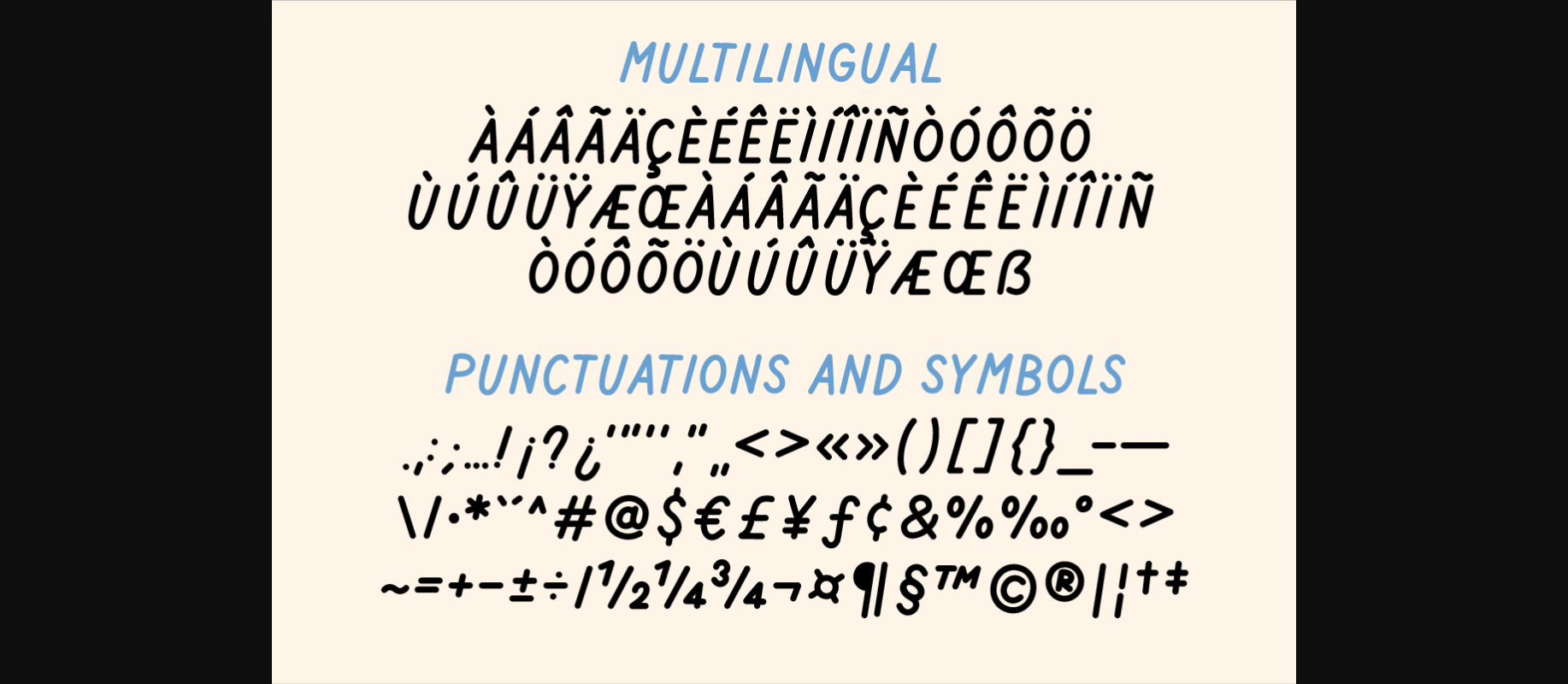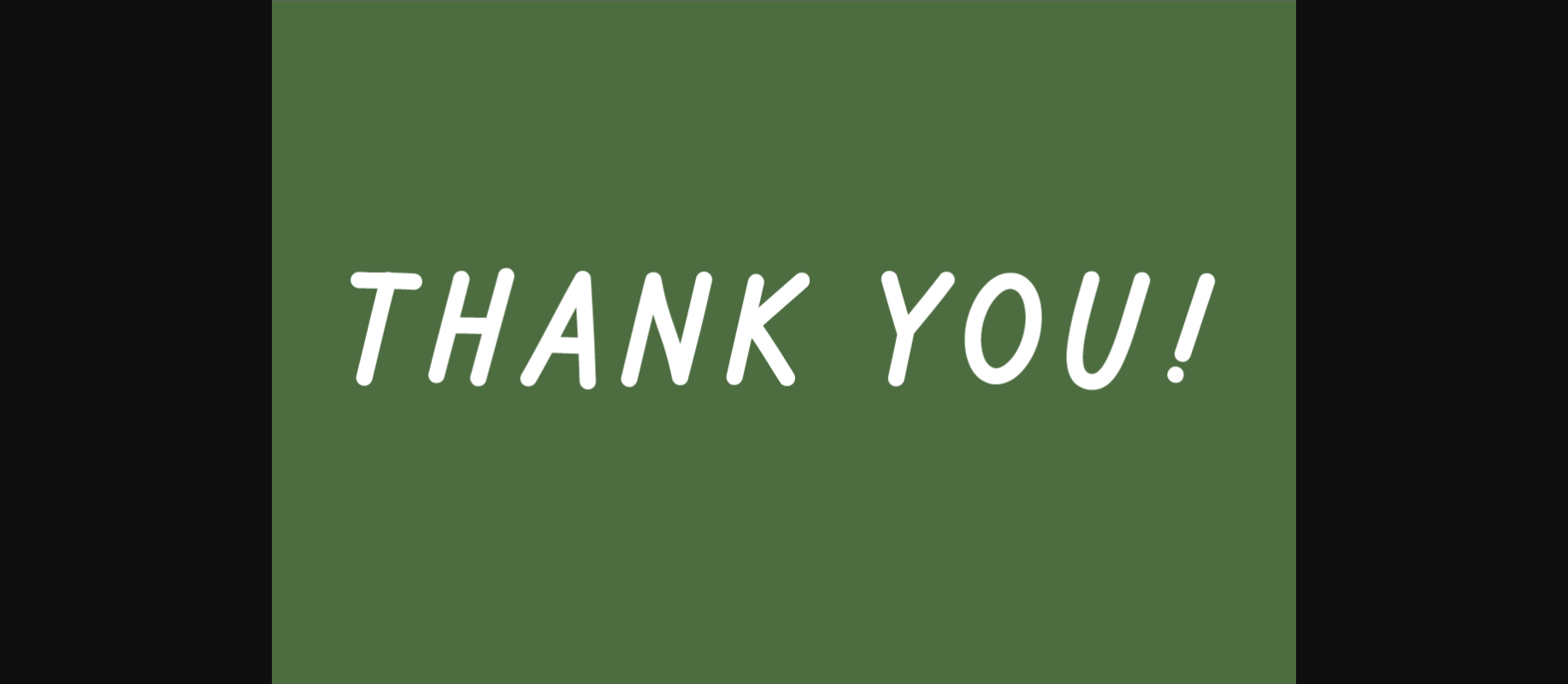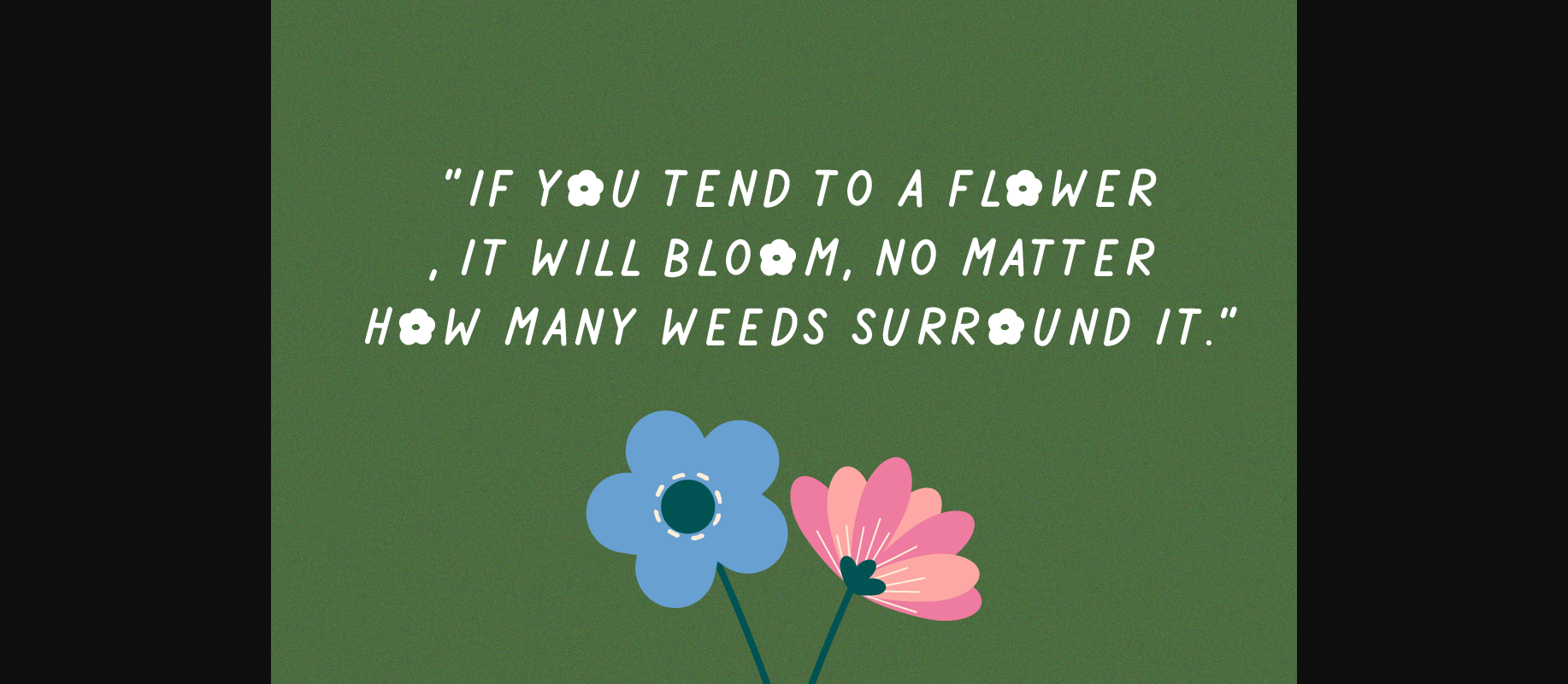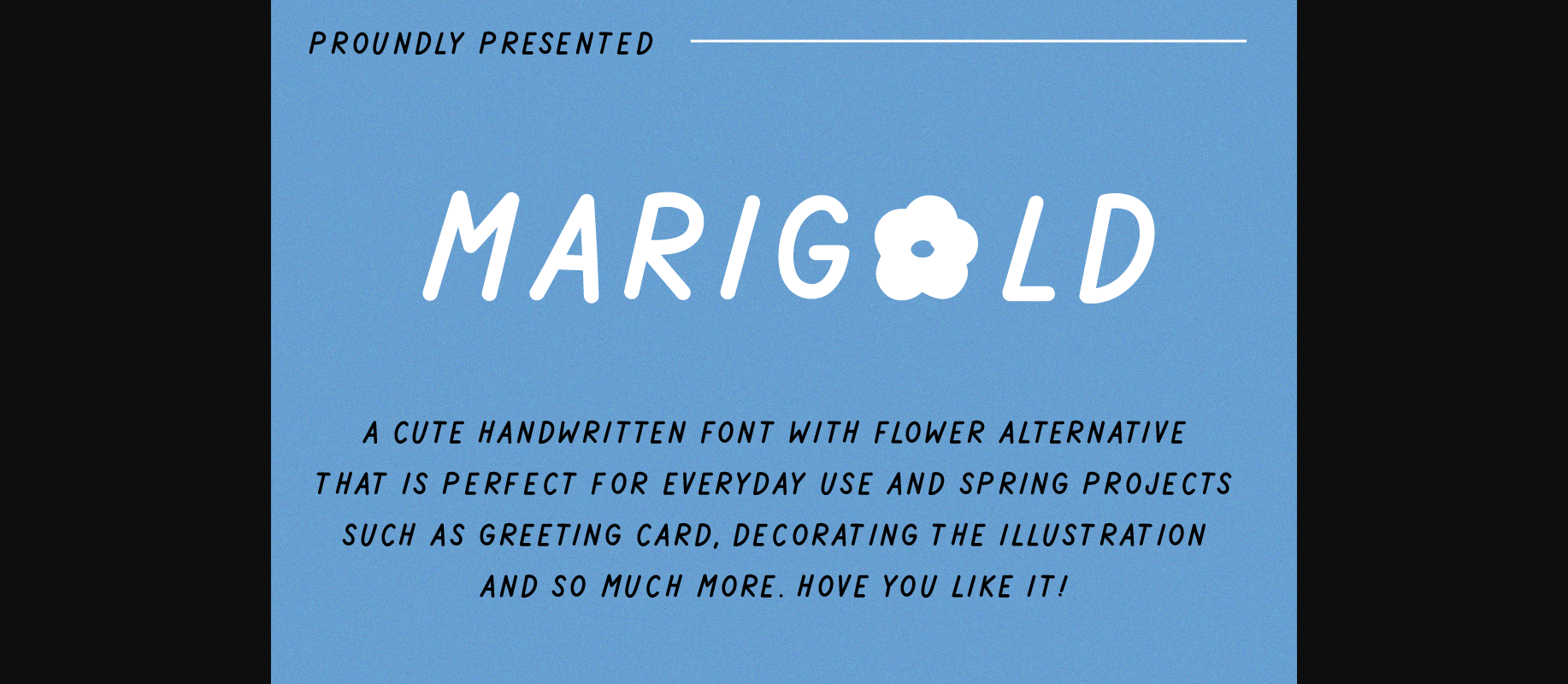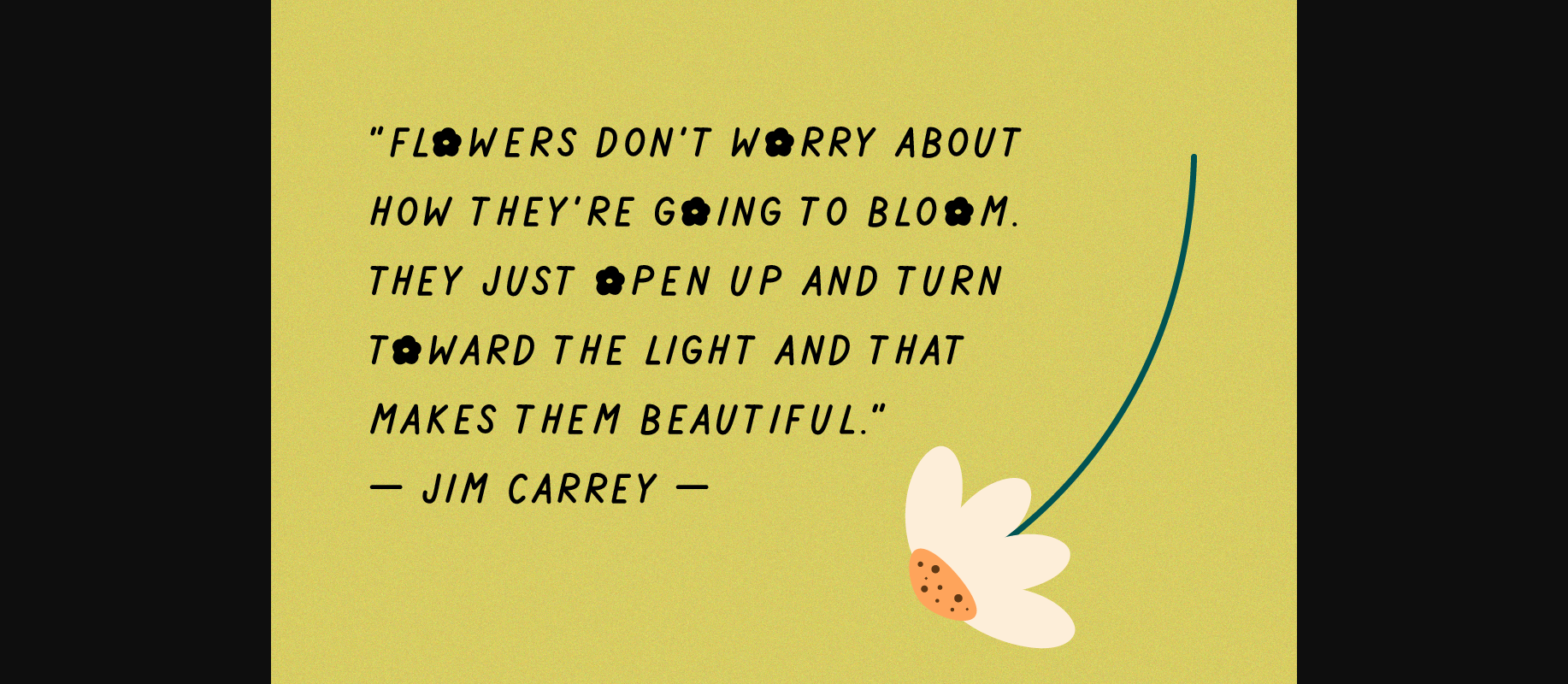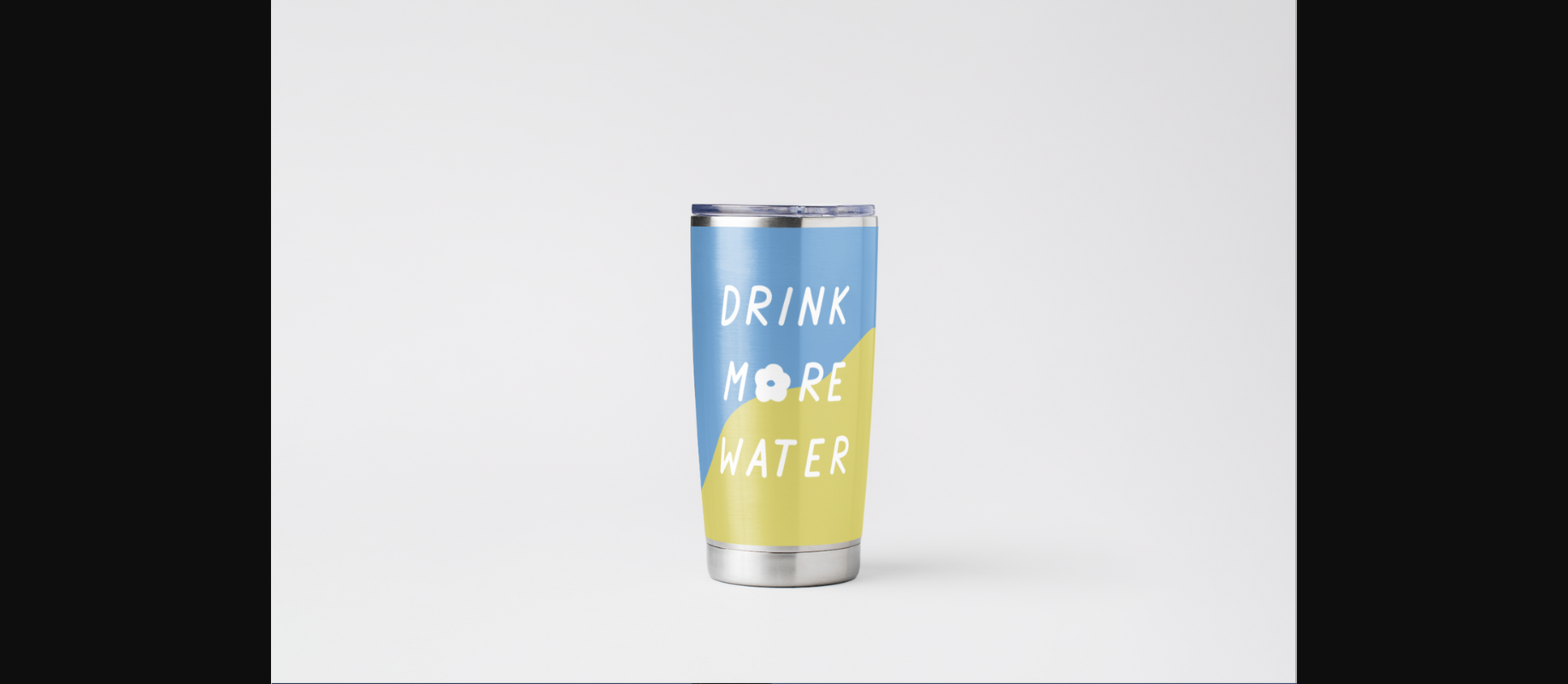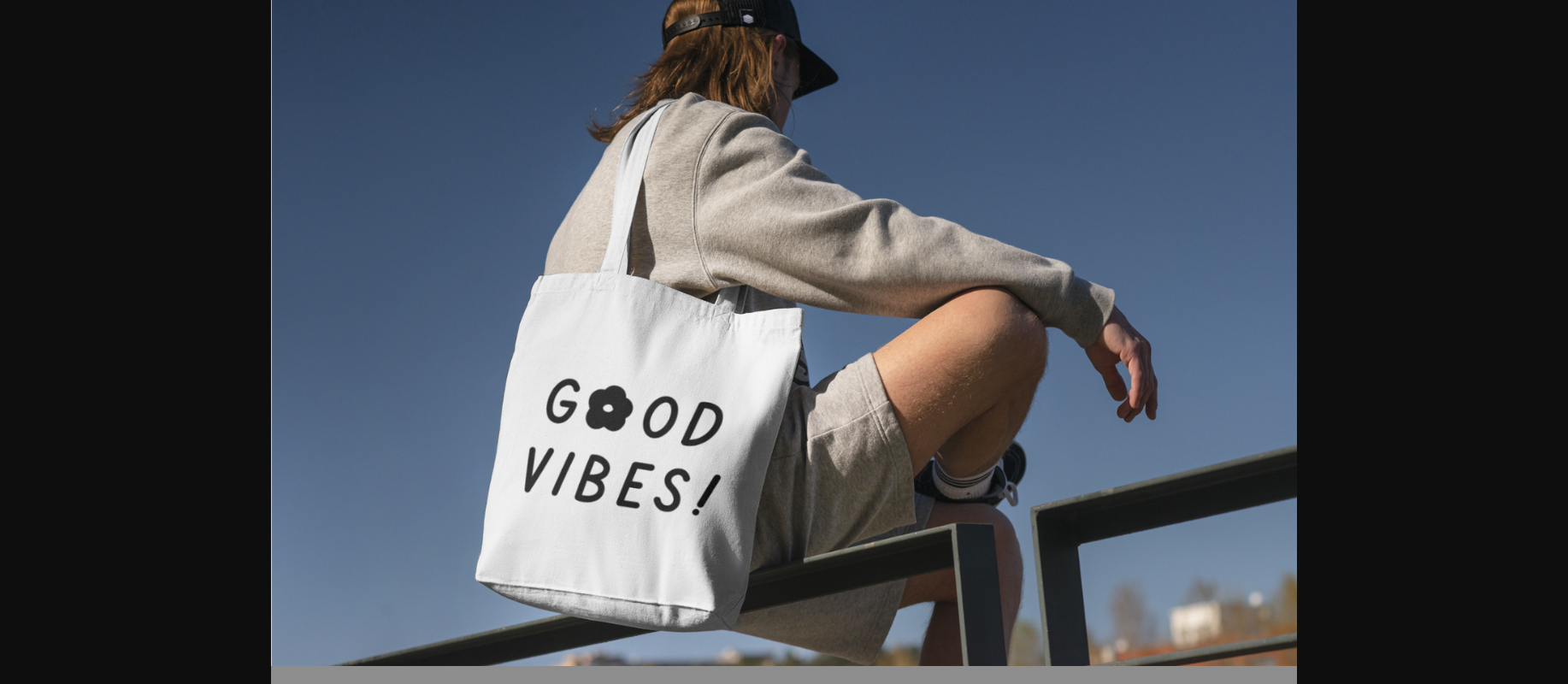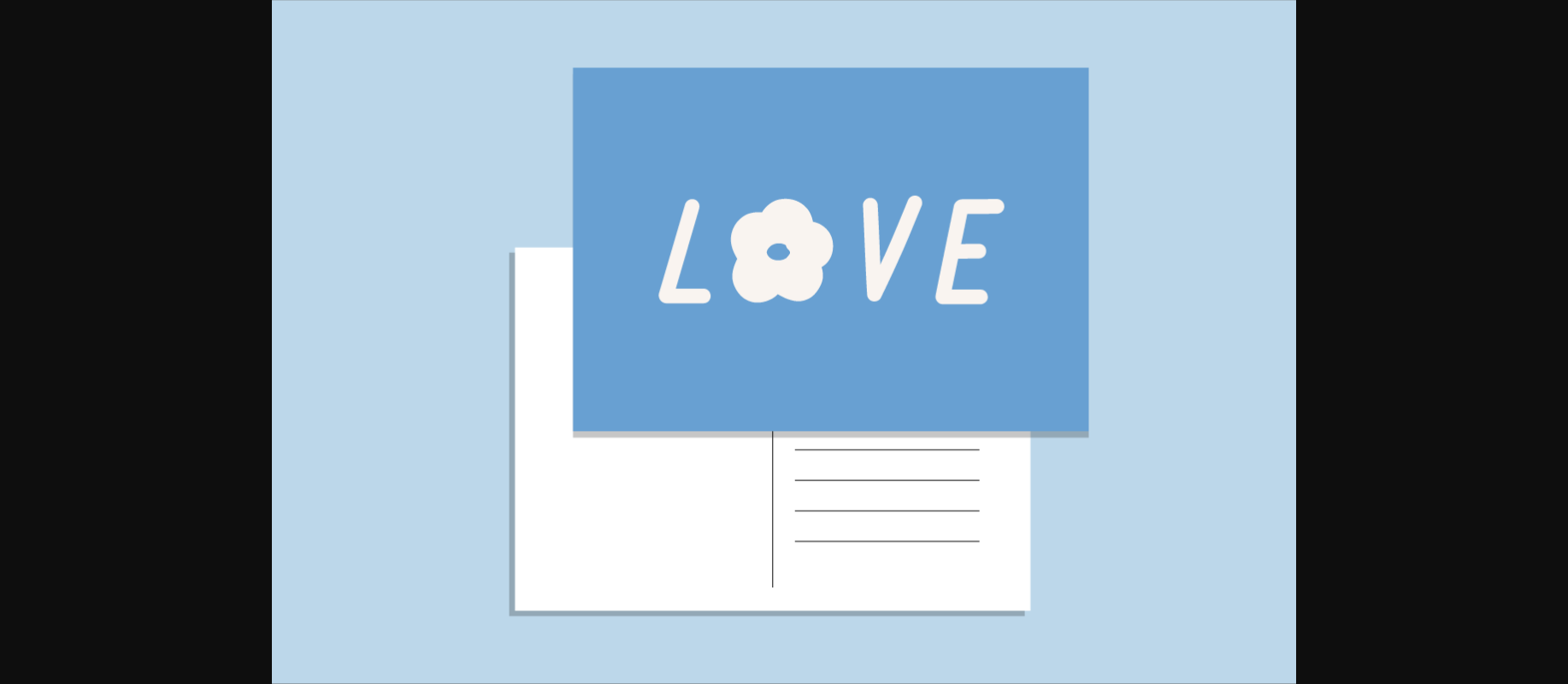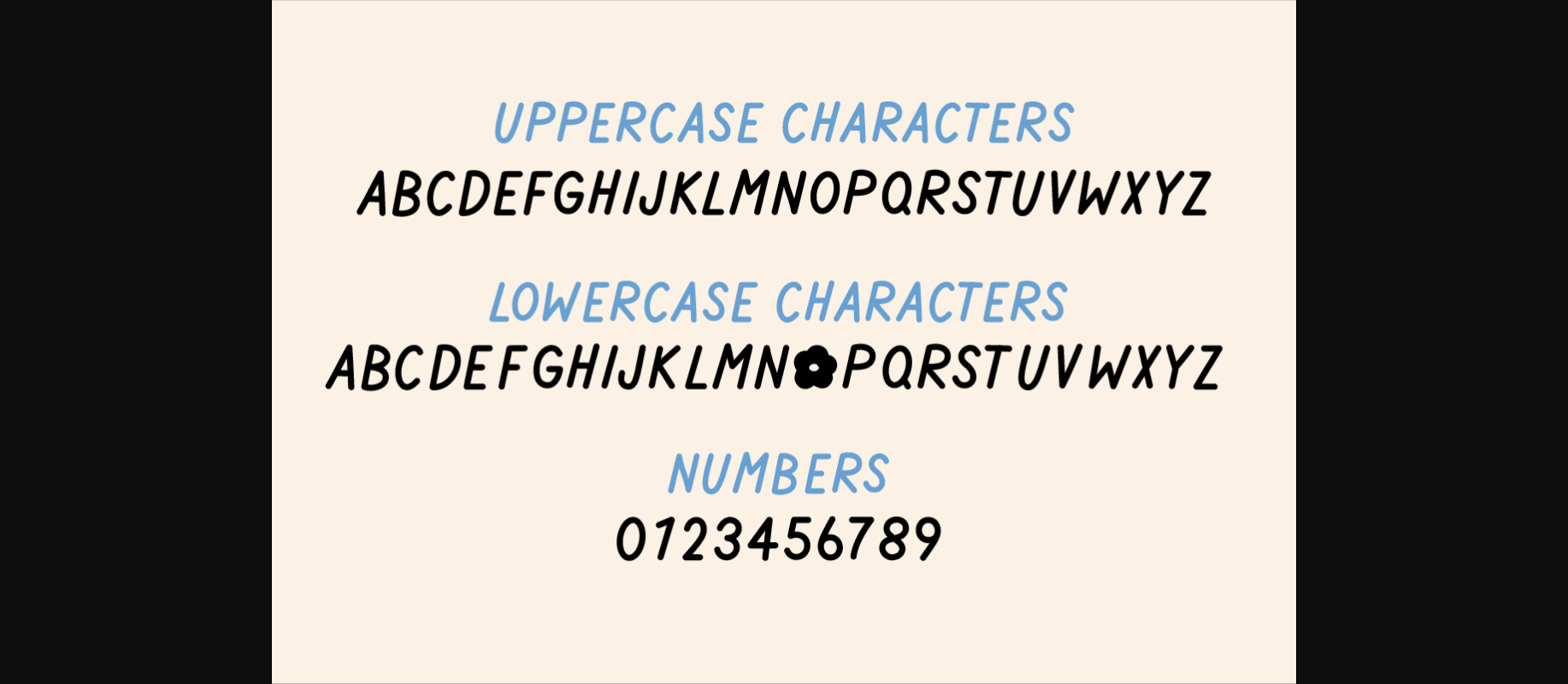
Marigold Font
About Marigold Font
Marigold is a cute flower font. Perfect for Spring and summer projects, shirts, Easter designs, invitation cards, mugs, stickers, playful quotes, creating posters, logos, greeting cards, packaging, decorating the illustration and so much more!